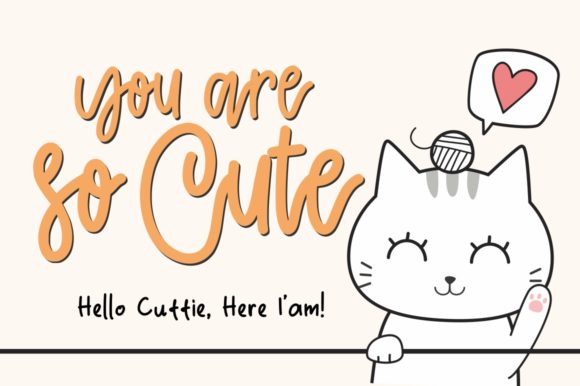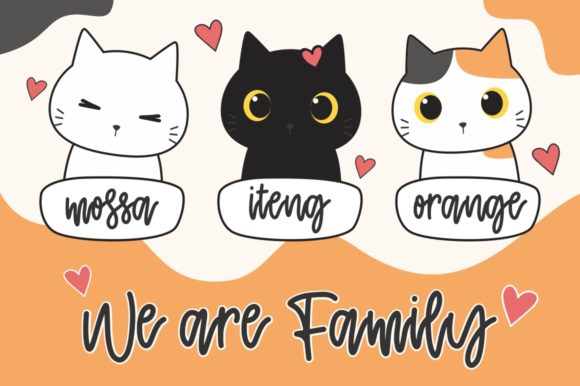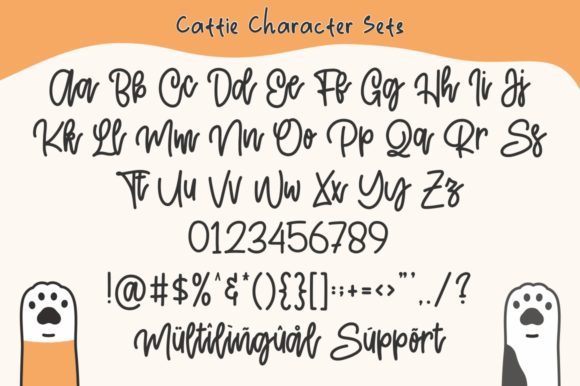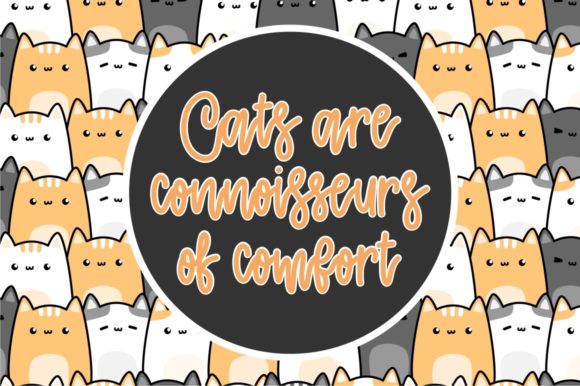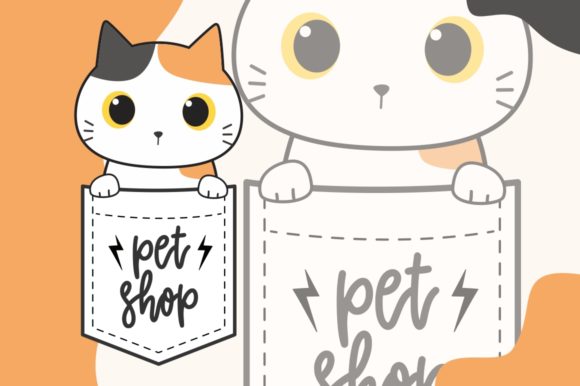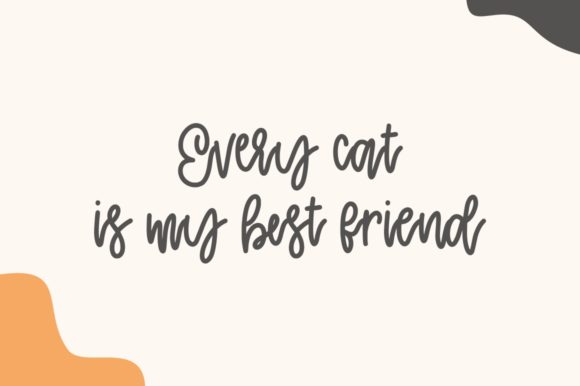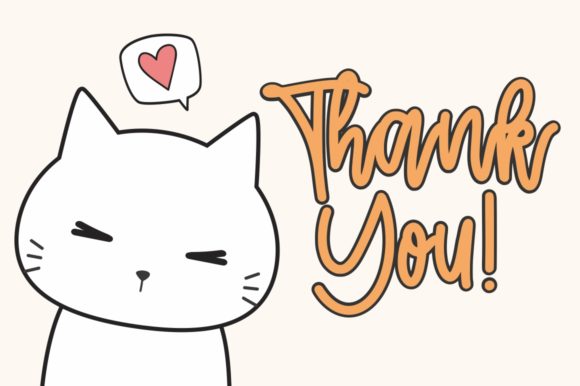
Cattie Font
About Cattie Font
Cattie is a cute script with charming letters. It’s the ideal typeface for giving your DIY projects a personal and authentic feel!